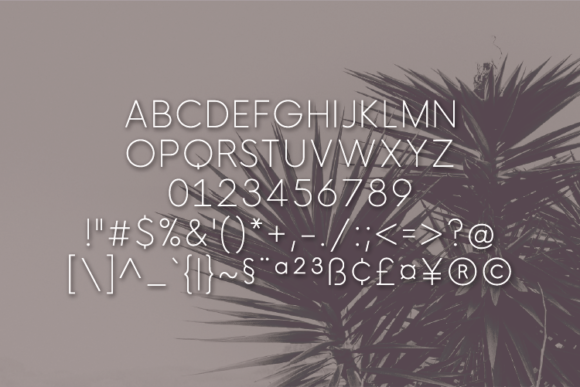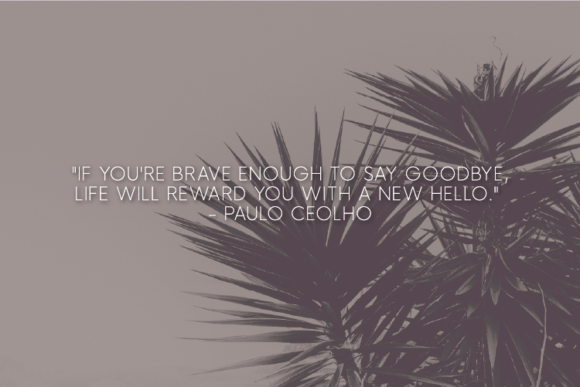
The Designer’s Delight: Exploring the Derreno Font
I still remember the frustration of working on a wedding invitation project, scrolling through pages of fonts, and feeling like I was stuck in a design rut. My client wanted something elegant, modern, and understated, but I just couldn’t find the right fit. That’s when I stumbled upon the Derreno font, and it was love at first sight! 💕
With its minimal and thin lettered sans serif design, Derreno instantly caught my attention. I knew I had to learn more about this font and share its awesomeness with fellow designers, crafters, and creative hobbyists.
An Honest Review: The Good and the Quirks
What I Love About Derreno ✨
- ✅ Its versatility: Derreno can be matched to an incredibly wide range of projects, from displays and headers to invitations, save the dates, weddings, and more!
- ✅ The clean and modern design: Derreno’s minimalistic approach makes it perfect for designs that require a touch of sophistication.
- ✅ Easy on the eyes: The thin lettering ensures that your text remains legible, even at smaller font sizes.
- ⚠️ Limited contrast: Derreno’s thin lines can make it challenging to use on backgrounds with a lot of texture or pattern.
- ⚠️ Not ideal for body text: Due to its thin design, Derreno might not be the best choice for longer blocks of text.
- Experiment with OpenType features, such as ligatures and stylistic alternates, to add a personal touch to your design.
- Explore the Glyphs panel to access Derreno’s OpenType features, such as swashes and stylistic alternates.
The Designer Inspiration Behind Derreno
Derreno was designed with the goal of creating a clean, modern, and versatile font that could be used in a wide range of design projects. The designer aimed to create a font that would be both elegant and understated, making it perfect for designs that require a touch of sophistication.
Q: What type of projects is Derreno best suited for?
A: Derreno is an incredibly versatile font that can be used in a wide range of projects, from displays and headers to invitations, save the dates, weddings, and more!
Q: Can I use Derreno for body text?
A: While Derreno is a beautiful font, its thin design makes it less suitable for longer blocks of text. It’s best used for headlines, titles, and short paragraphs.
Q: Does Derreno support OpenType features?
A: Yes, Derreno supports OpenType features, such as ligatures and stylistic alternates, which can add a personal touch to your design.